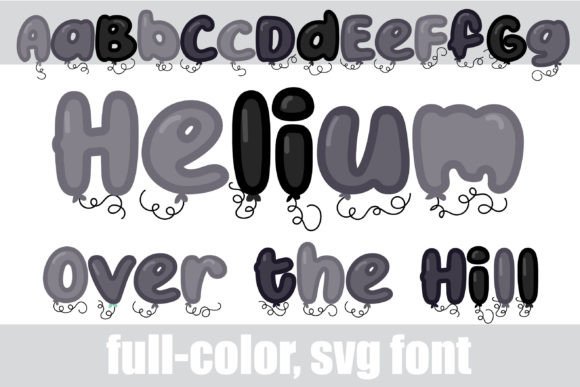
Prepare yourself to float away with Helium – Over the Hill Font. This whimsical, full-color font will make your designs soar to new heights. Picture perfect for Halloween or celebrating someone who has reached the peak of life's adventures! Helium – Over the Hill Font is your ticket to creating invitations that pop, decorations that shimmer, and branding that bursts with personality. Its enchanting black and gray helium balloons dance across your designs, ready to carry your words to the heavens.
But Helium – Over the Hill Font is more than just a pretty face. It's packed with versatility that will elevate your creative endeavors. With its alternate case and additional color options, you'll have a kaleidoscope of choices at your fingertips. Unleash your imagination and let the colors flow, whether you're designing for print, web, or anything in between.
But what sets Helium – Over the Hill Font apart is its vibrant, full-color glory. No more settling for dull, lifeless fonts – this one bursts with life, bringing a touch of magic to every character you type. It's like having a rainbow at your disposal, ready to paint your words with hues that captivate the eye.
So why settle for ordinary fonts when you can have extraordinary? Dive into the world of Helium – Over the Hill Font today and let your designs take flight. Immerse yourself in a world of color, creativity, and endless possibilities. With this font by your side, the sky's the limit!